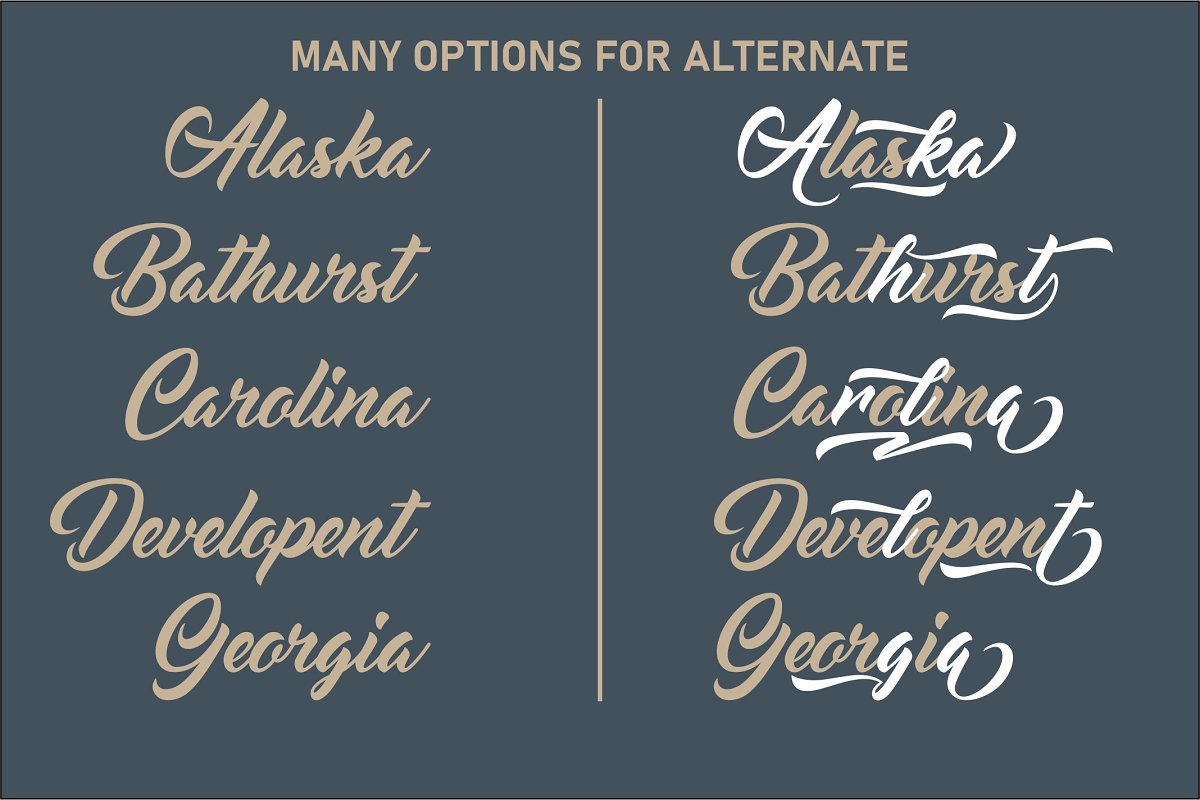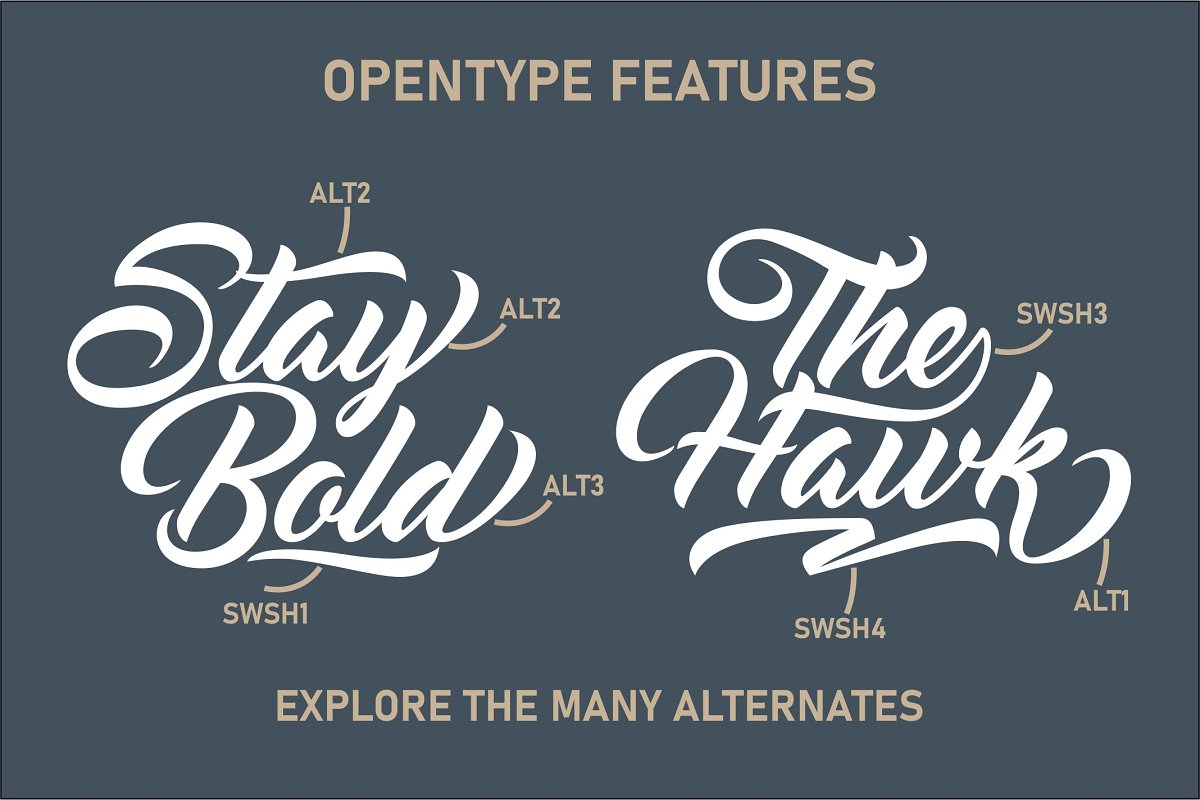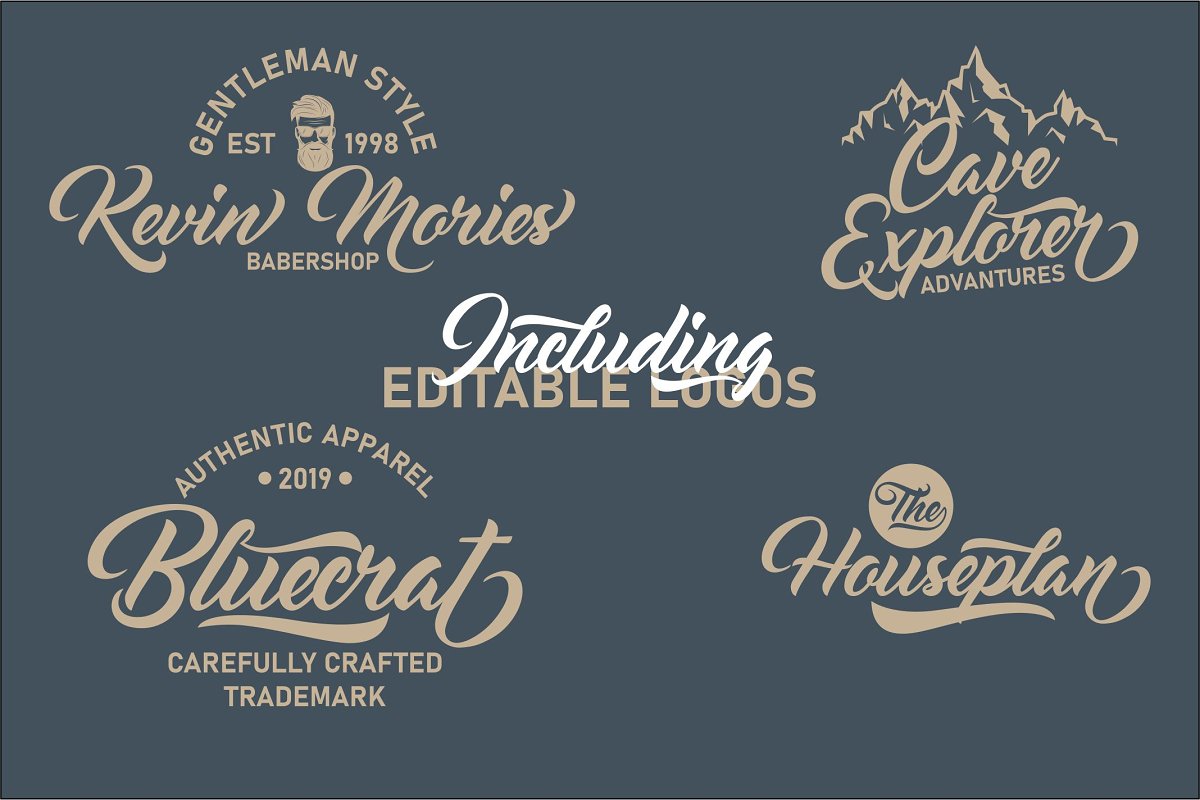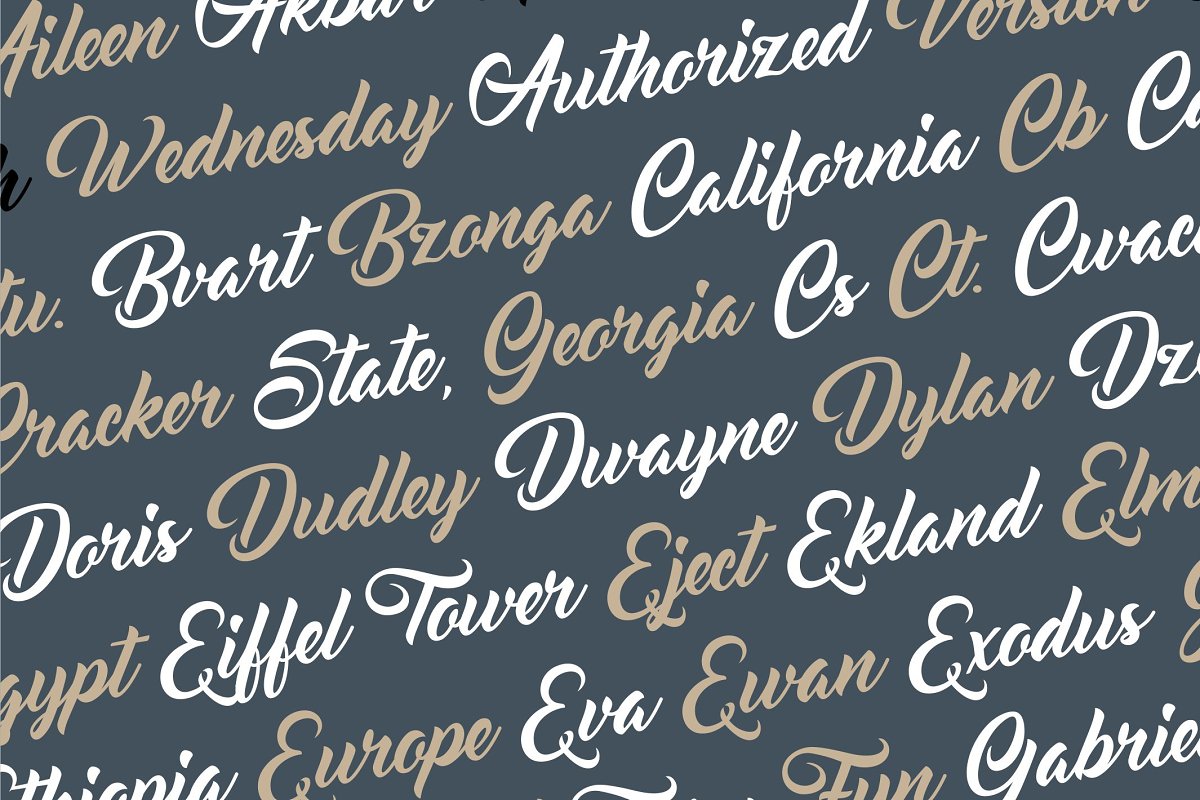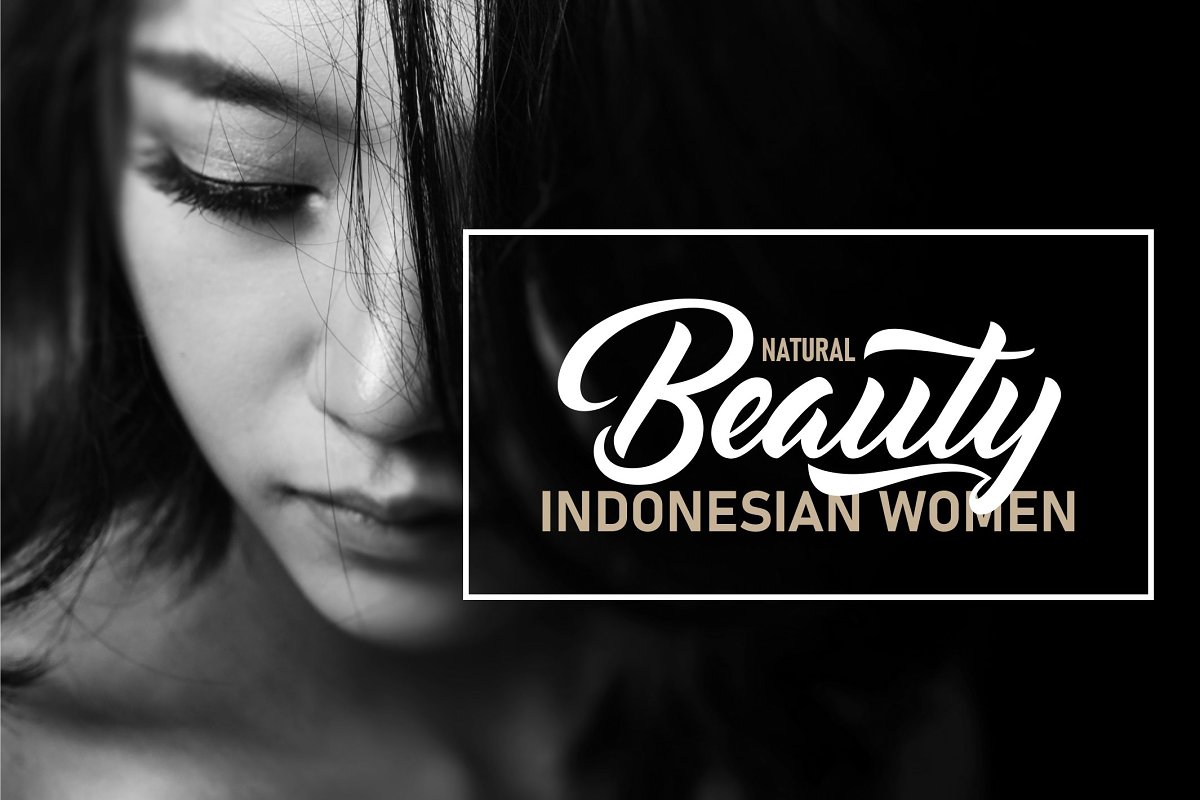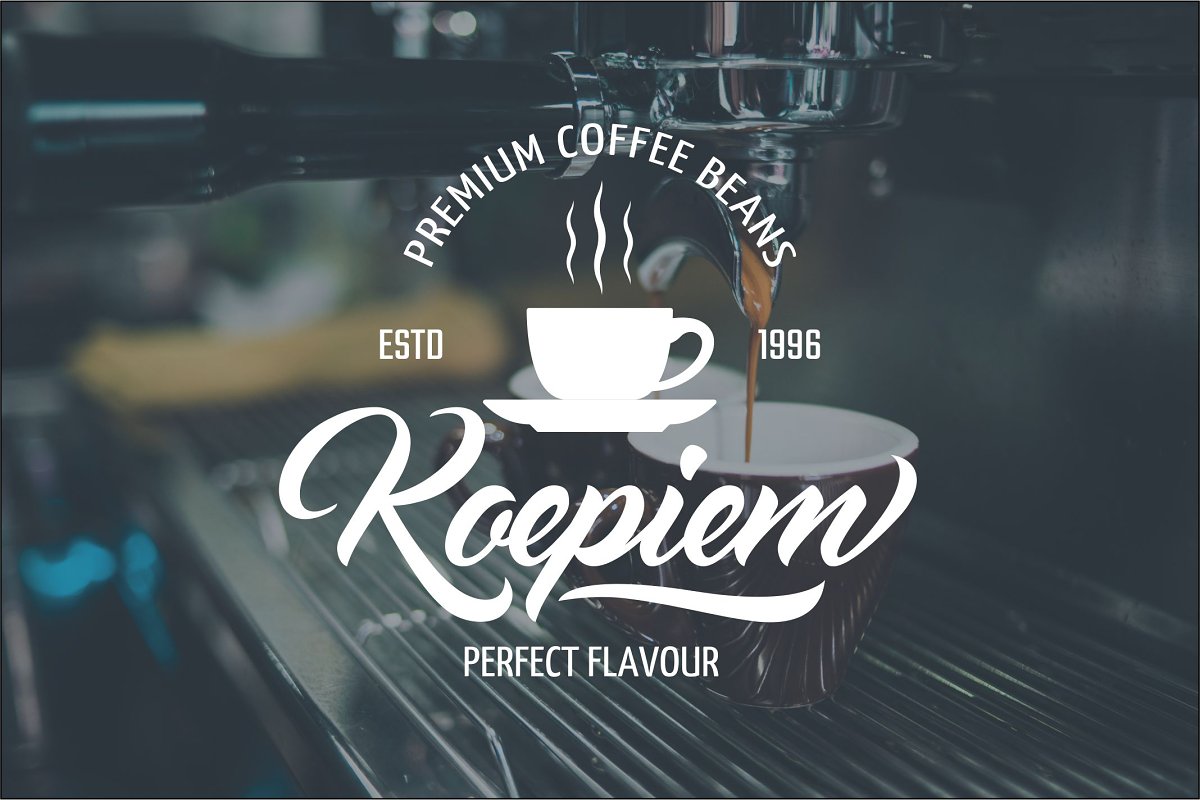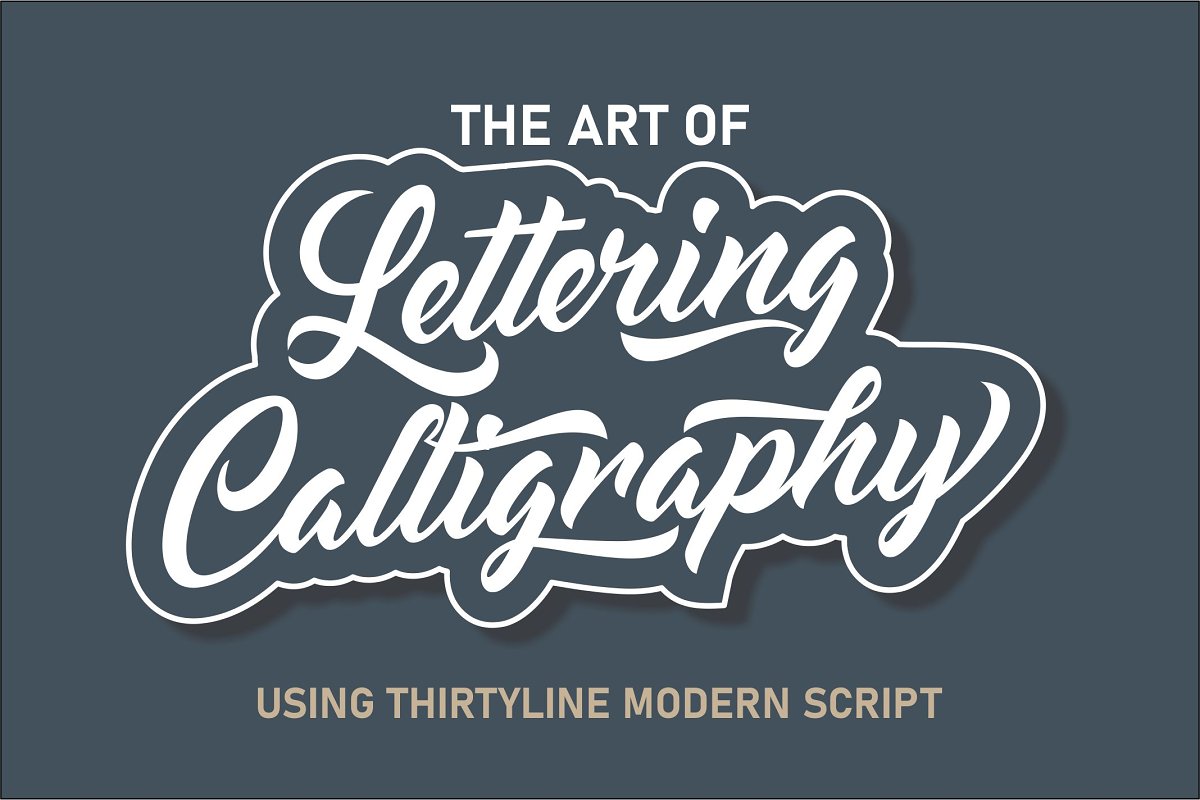
About the Rougbelt Modern Script Font
Rougbelt is a gorgeous and bold handwritten font, crafted to give your headlines and logotype projects a retro touch. This font reads as strong, confident, and dynamic and can add tons of nostalgic character to your designs. This font is PUA encoded which means you can access all of the amazing glyphs and ligatures with ease!